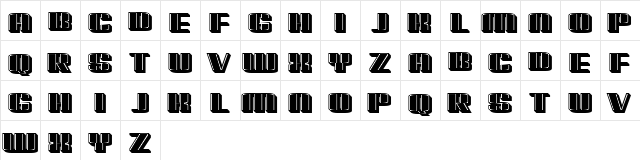
Possession Filled Regular
Design Context for Possession Filled Typeface
Possession Filled is a composed and adaptable typeface that performs quietly and consistently across a wide range of design contexts.